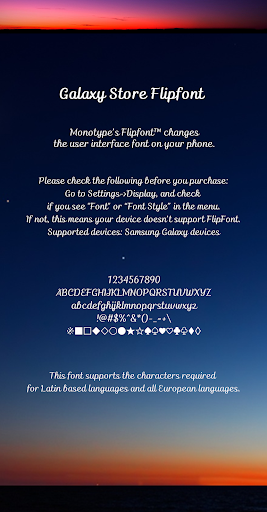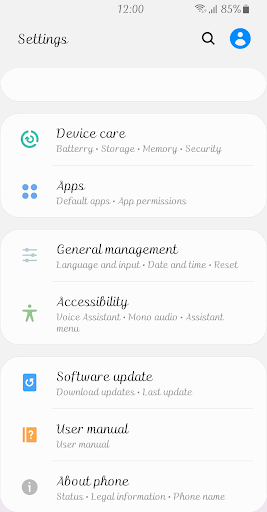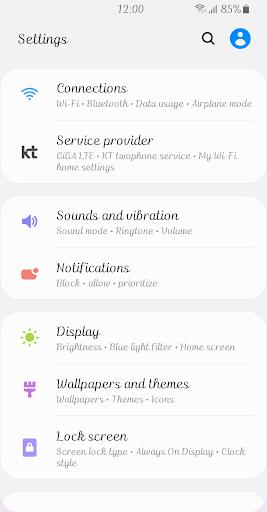
Fine Nightfall
This is a script-style font that emphasizes mature handwriting.
The stroke of the letter can be seen to change in thickness as it moves, and the stroke continues smoothly.
The slope is not large, giving it a stable and calm appearance.